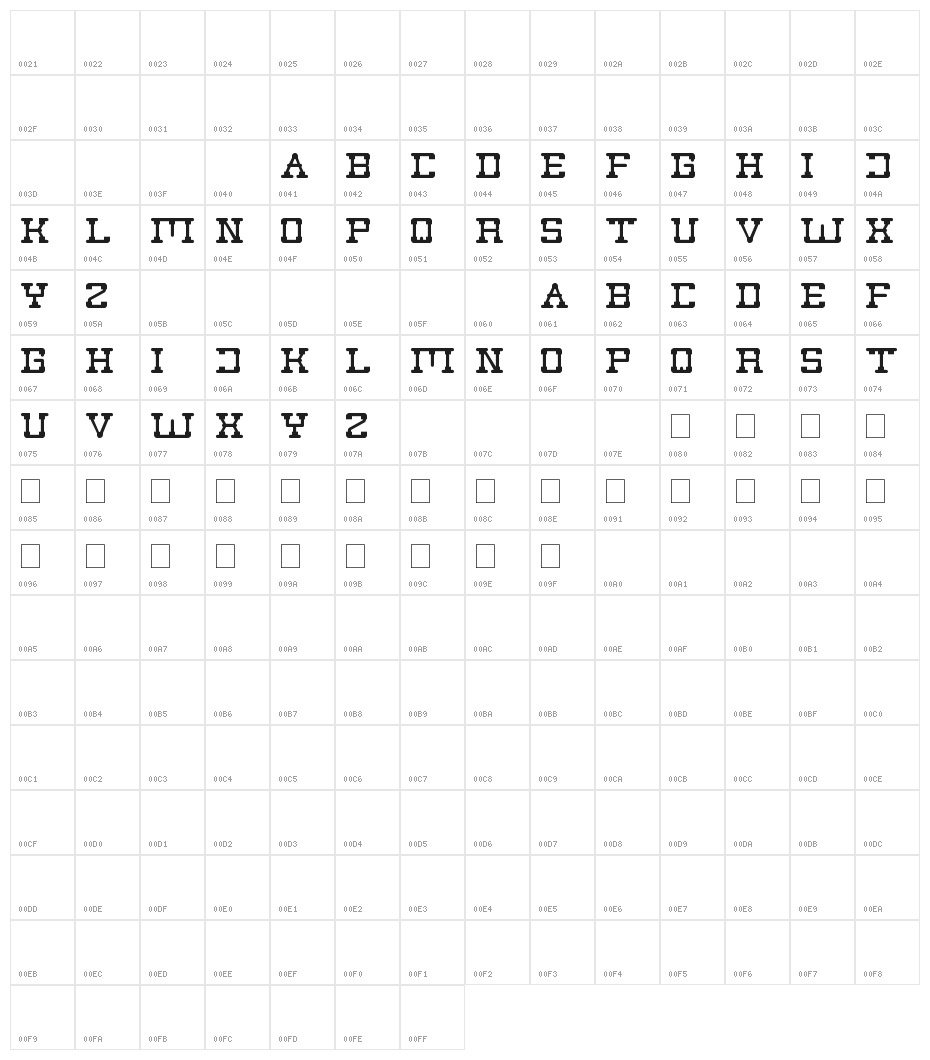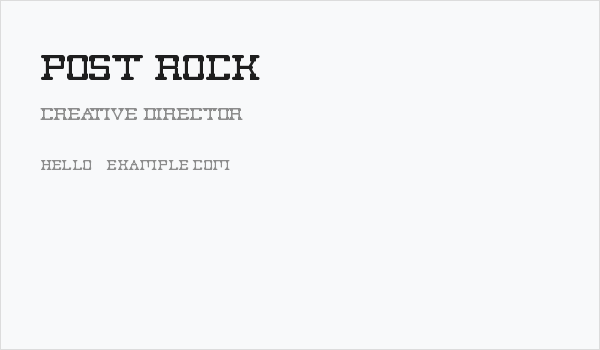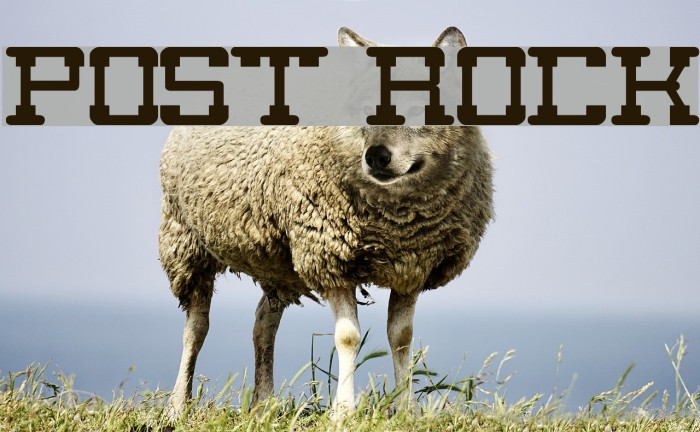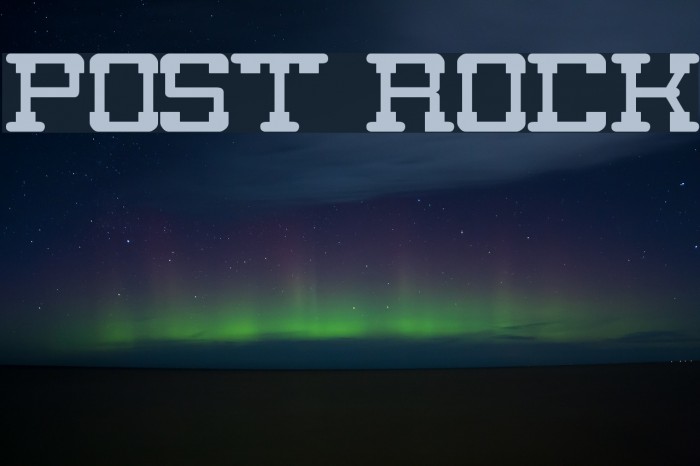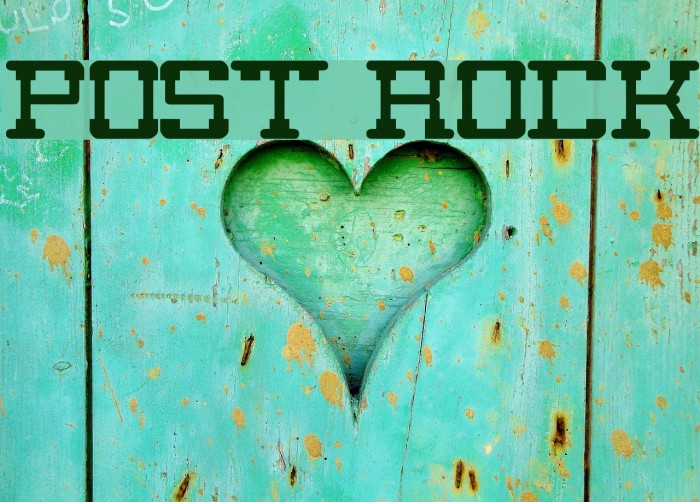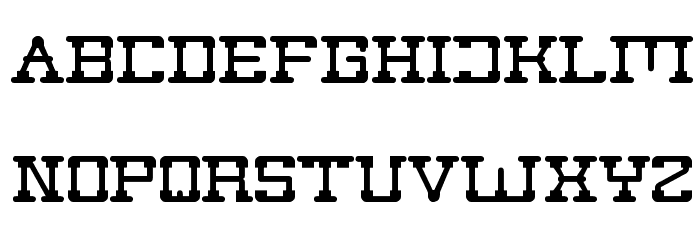
post rock Font
post rock Description
This font features a bold, geometric design with a distinctly industrial feel. The characters are constructed with thick, block-like strokes that create a sense of strength and solidity. Each letter is composed of straight lines and sharp angles, giving the font a mechanical and structured appearance. The uniformity in the design is balanced by slight variations in the width of the strokes, adding a touch of dynamism. This font is highly legible and makes a strong visual impact, making it suitable for attention-grabbing headlines and titles. The spacing between characters is consistent, ensuring clarity and readability.
| Overall Style | Industrial, Mechanical |
| Proposed Projects | Ideal for use in posters, logos, branding, and any project requiring a strong, industrial aesthetic. |